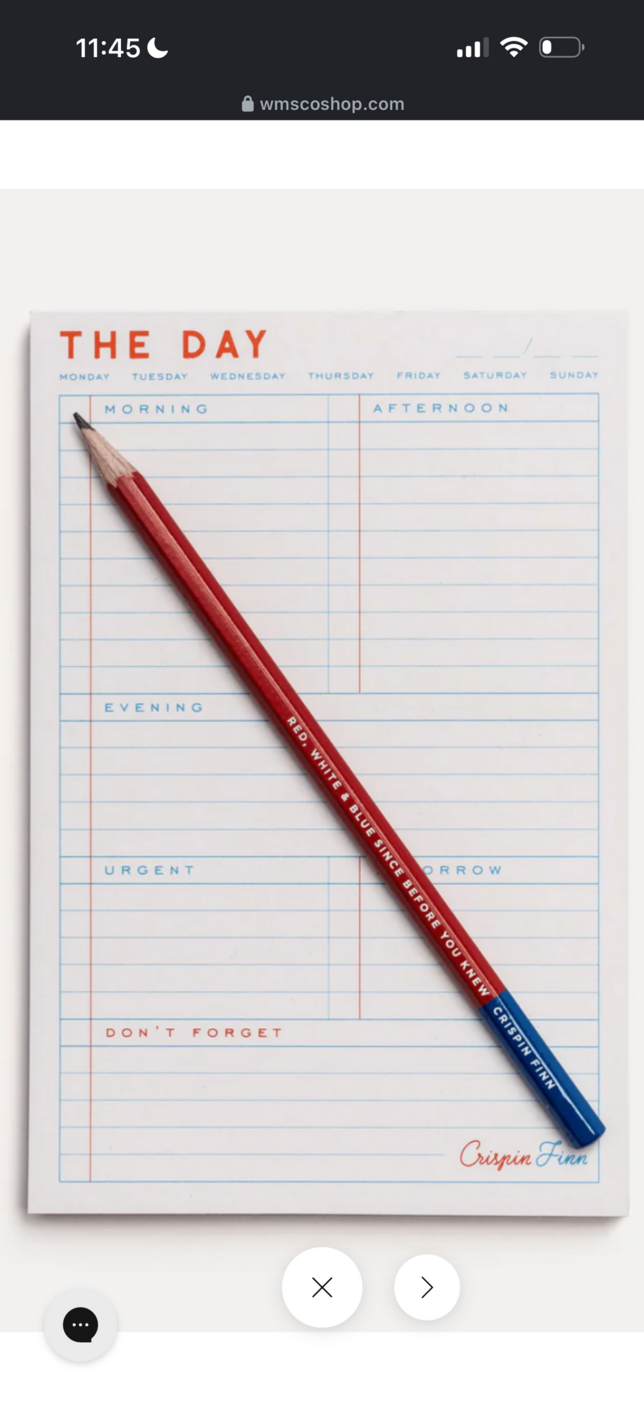
What’s the font on this notepad from WMSCO SHOP?
Saw this online( link below) and need help in ID’ing the font used for the “morning afternoon evening” headers I don’t believe it’s Futura because the capital R is different I intend to use this font to create name plates for the office doors of my real estate office Huge fan of 1960s racing so I feel that this font is perfect for our racing theme period for our office thanks in advance!